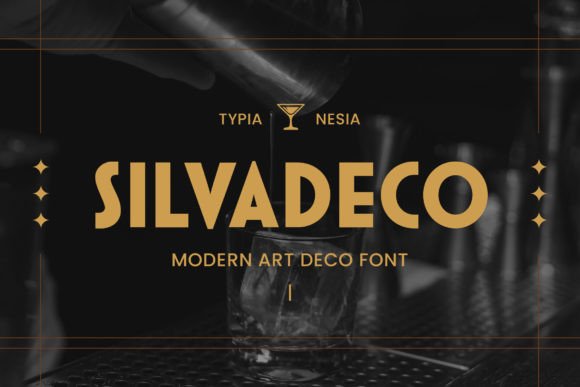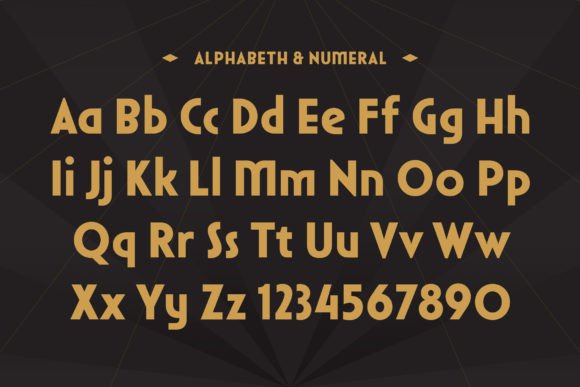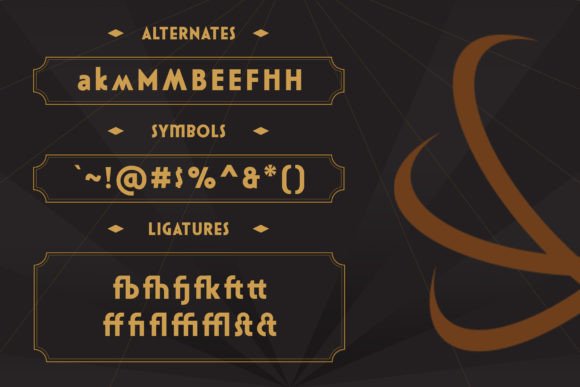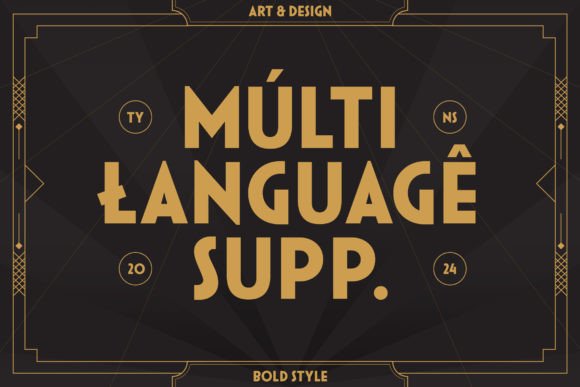
Silvadeco Font: Modern Art Deco Typography for Bold Logo Design
About the Silvadeco Font
Unleash your creativity with Silvadeco Font, a versatile font perfect for a wide range of applications. Silvadeco – Modern Art Deco Font – Bold Contemporary Vintage Display Font.
Silvadeco is a Modern Art Deco Font that combines contemporary aesthetics with the timeless elegance of the Art Deco era. Its bold geometric shapes, evoking a sense of luxury and modernity, make it perfect for projects that require a stylish and bold look. It’s perfect for branding, web design, high-end packaging, editorial design, event invitations, posters, elegant product labels and more
Silvadeco Font Usage Examples
Silvadeco Font Example